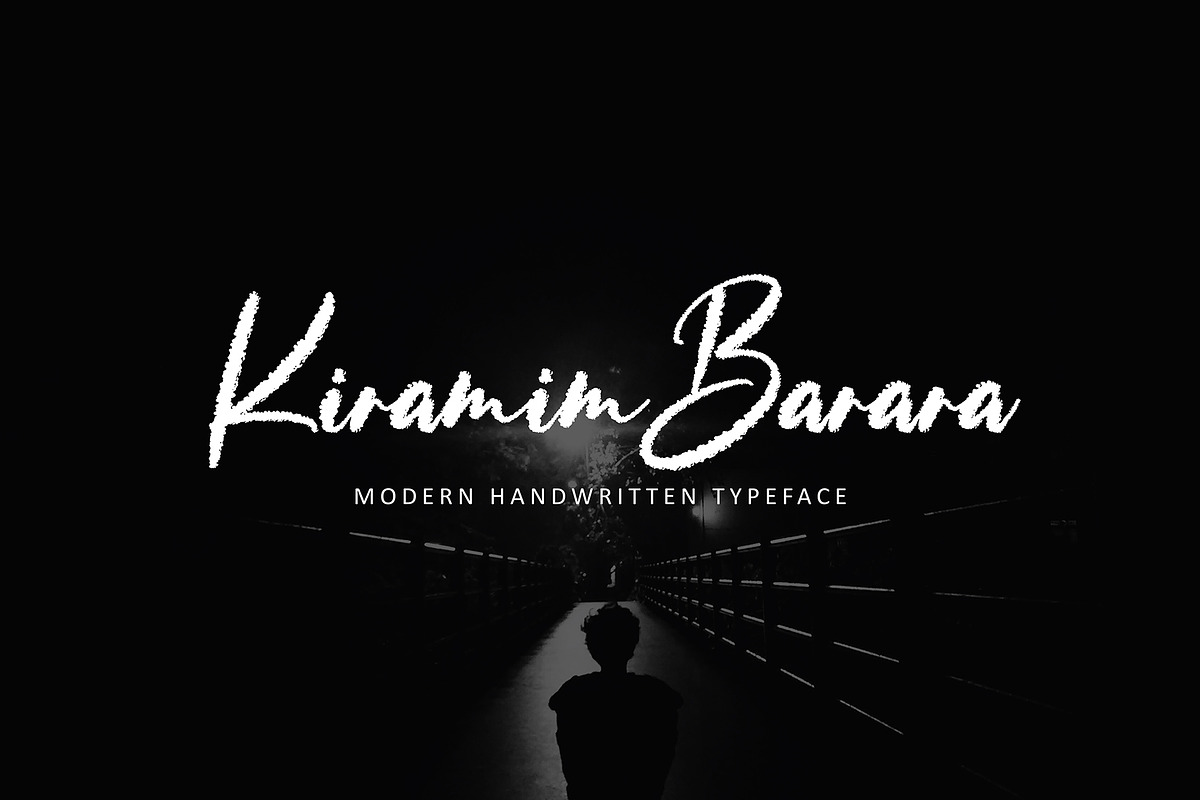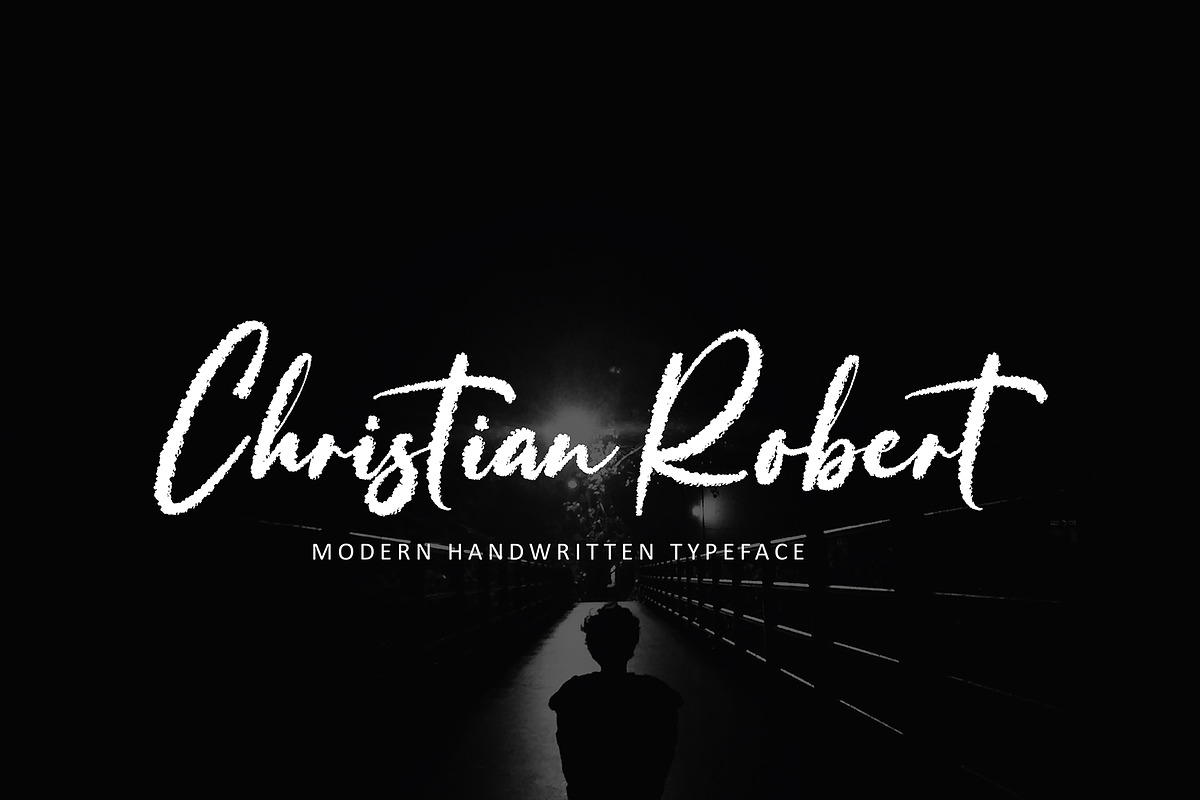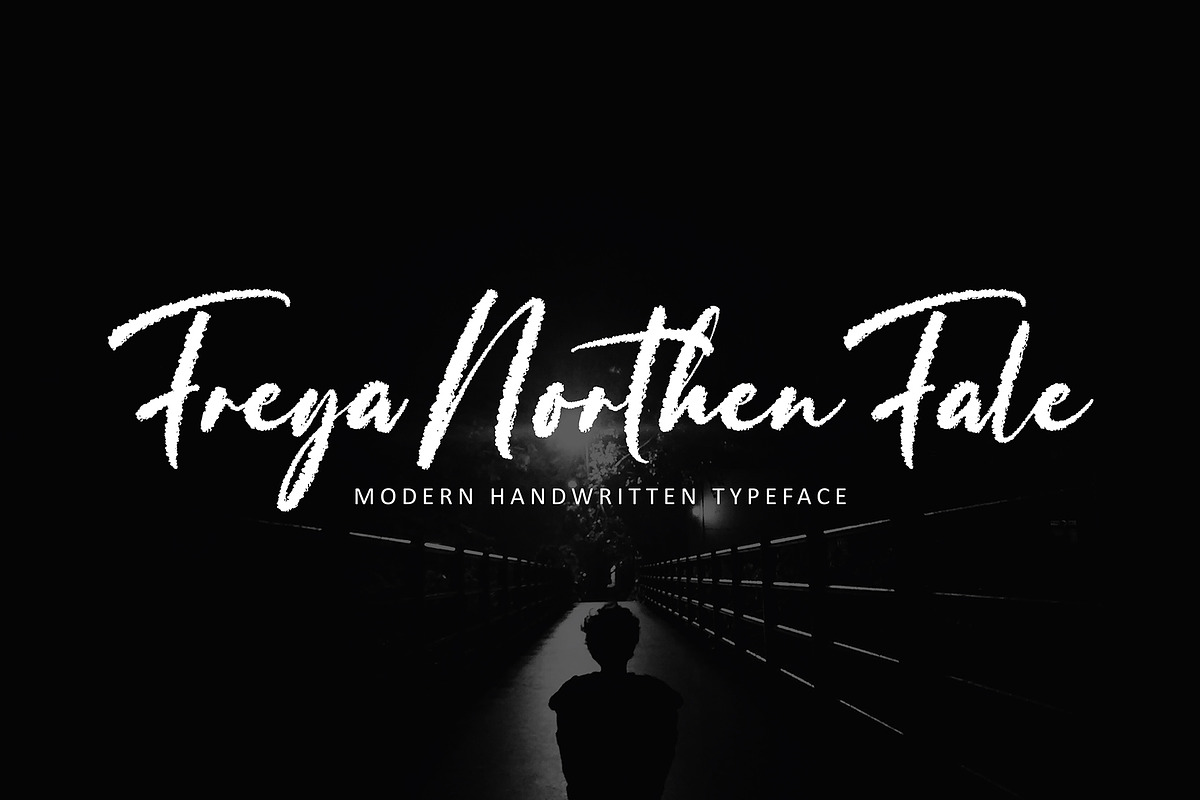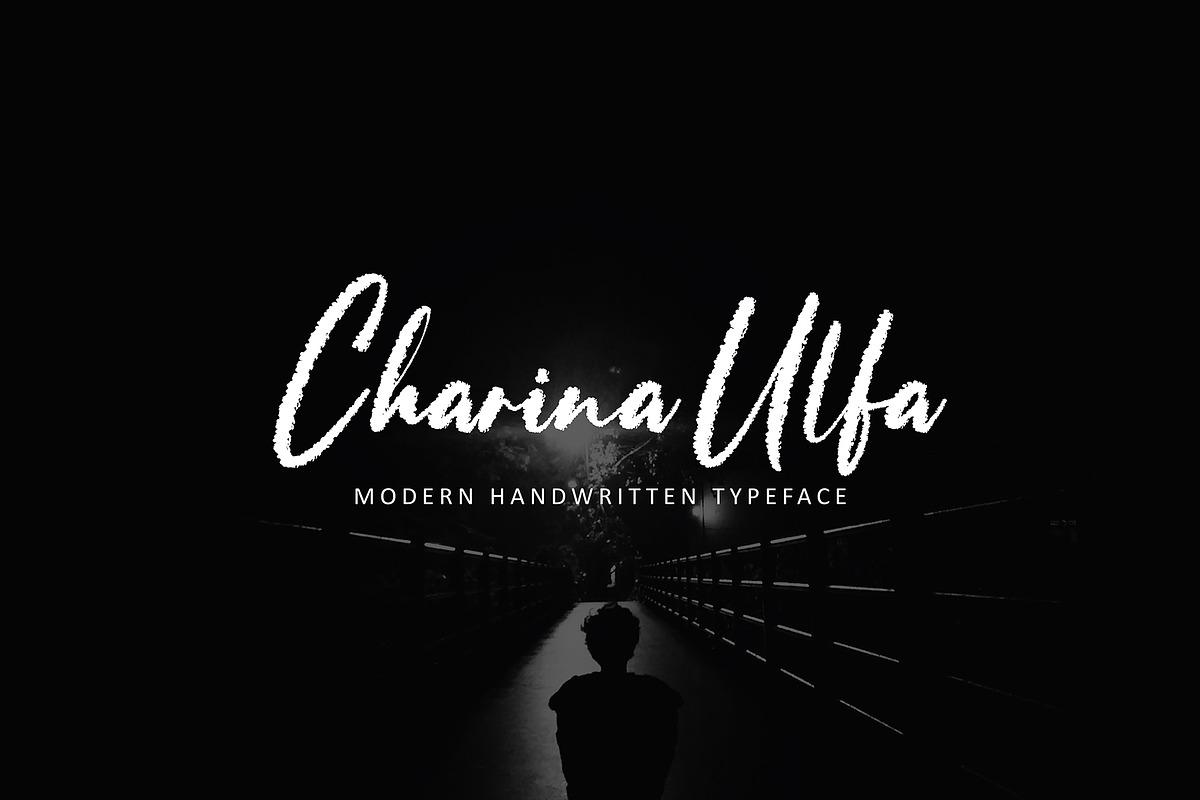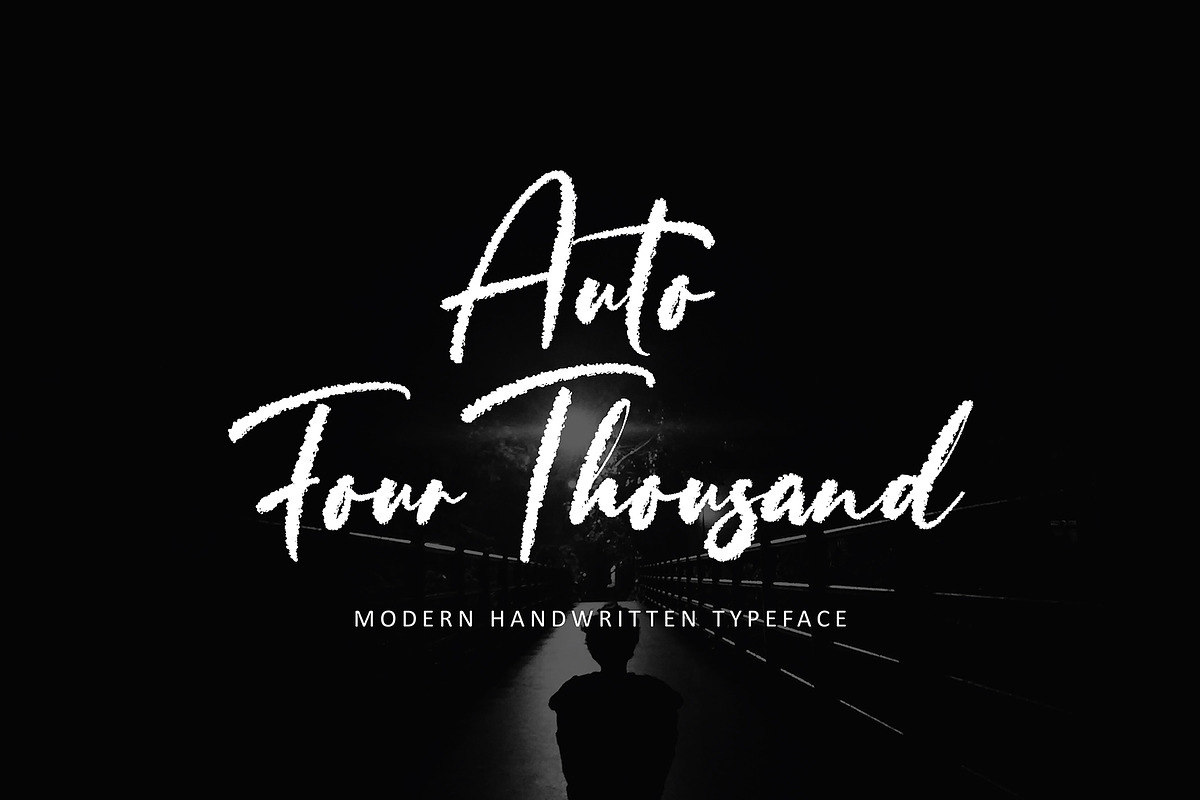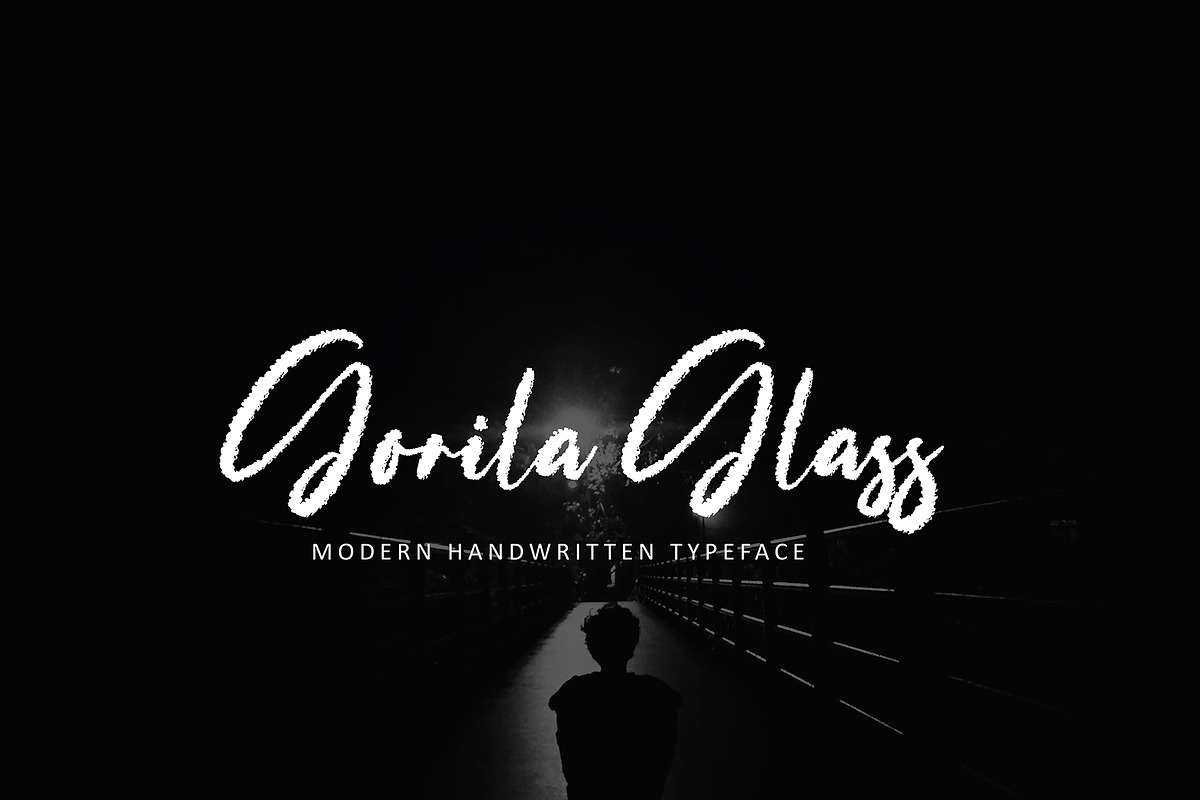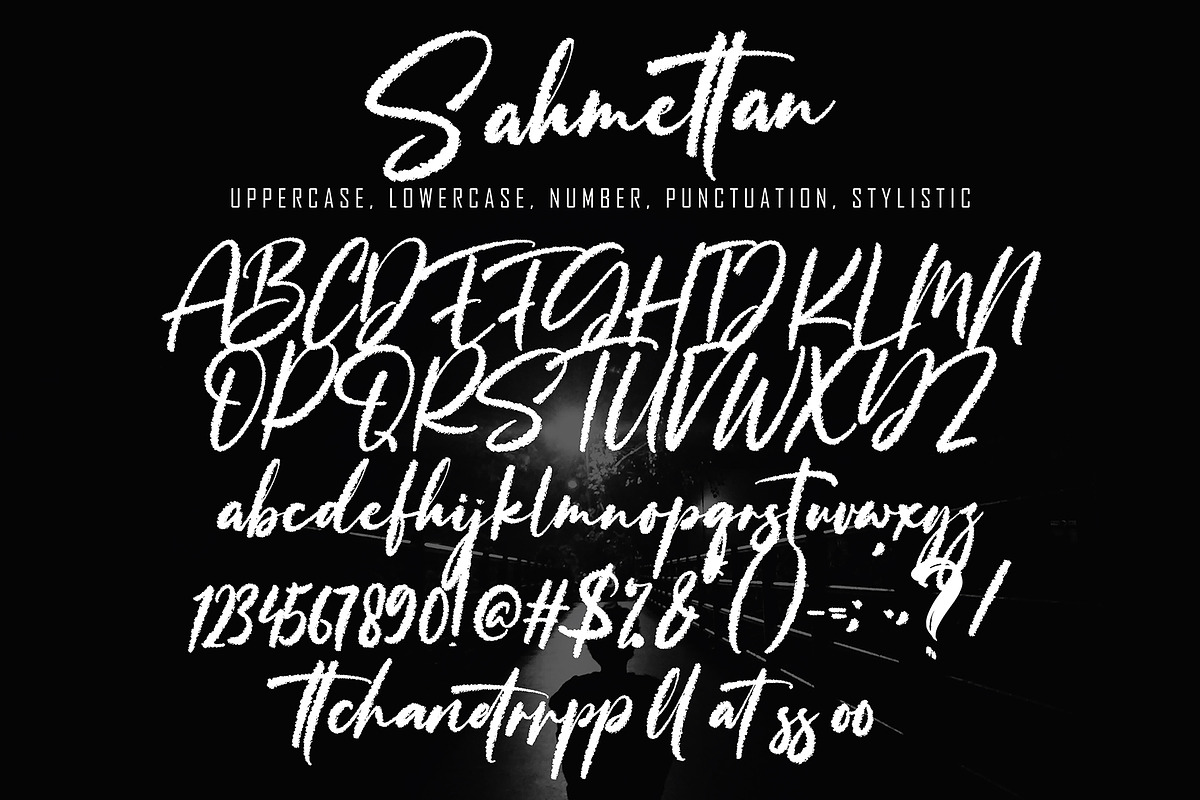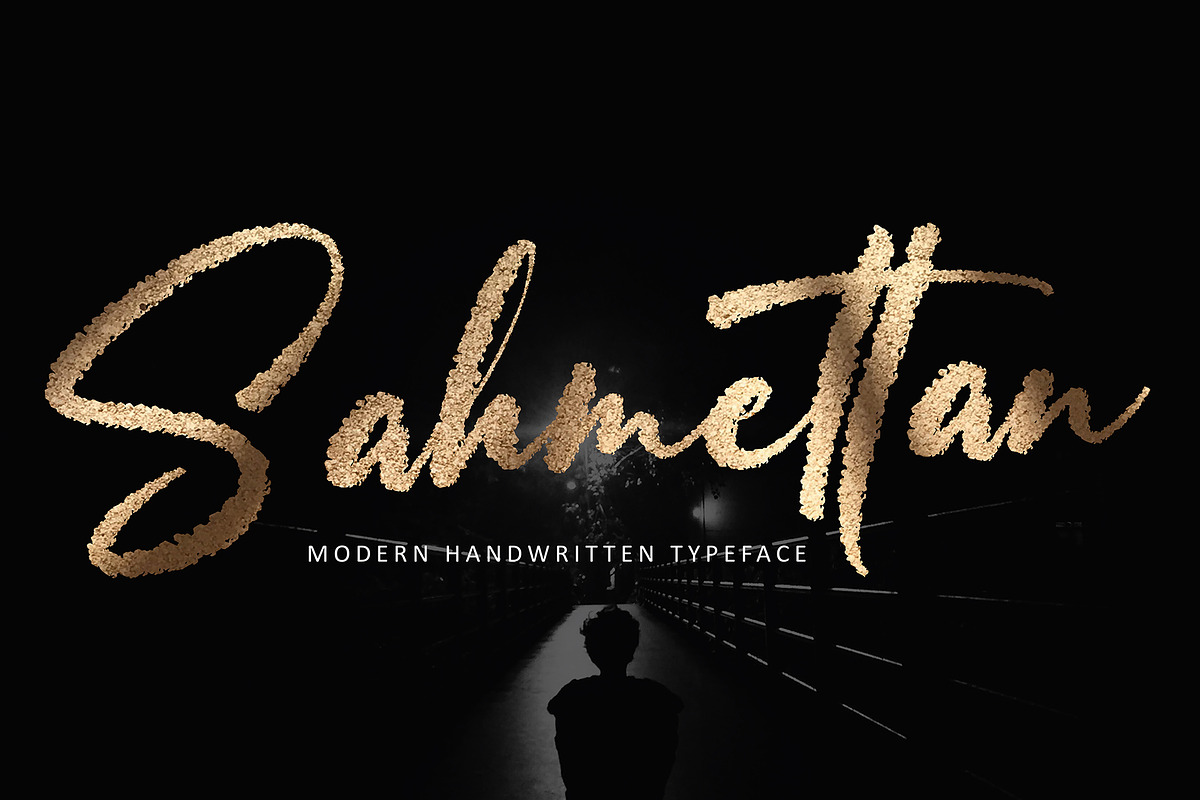
Sahmettan
Sahmettan font with new style, this font will perfect for many different project ex: quotes, logo, blog header, poster, banding, letter, invitation, stationery, etc...